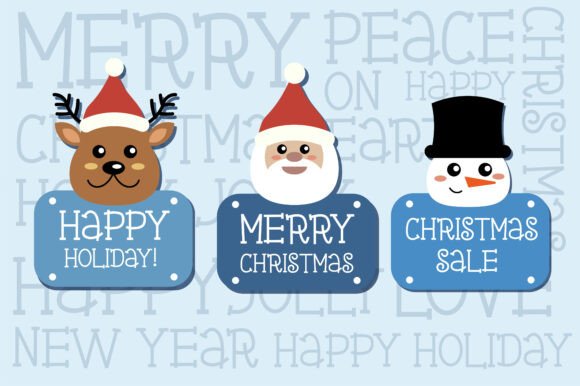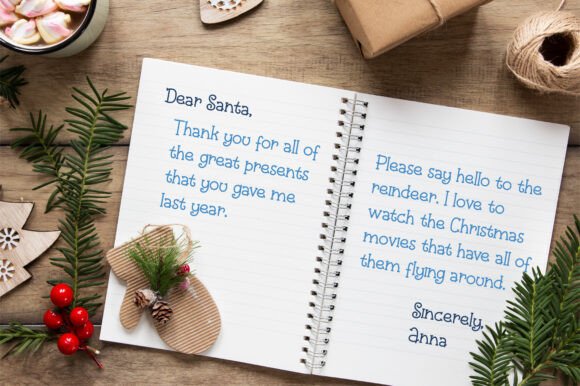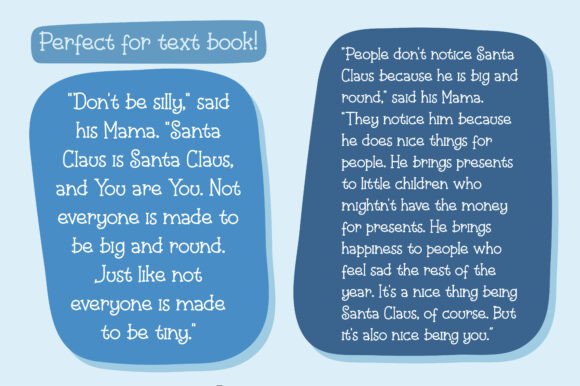
Introduction to Christmas Hohoho Font
Christmas Hohoho feels playfully nostalgic and delivers an incredible vintage aesthetic.
Use this script font to add that special retro touch to any design idea you can think of .
Key Features of Christmas Hohoho Font
Why Choose Christmas Hohoho Font?
Christmas Hohoho Font offers exceptional quality and versatility, making it a valuable addition to your design toolkit. Whether you’re creating for personal projects or commercial use, Christmas Hohoho Font delivers professional results.